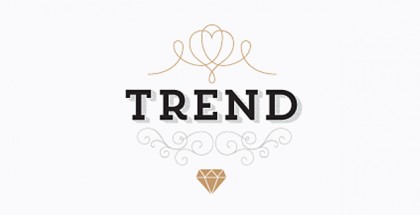
Eponymous
Eponymous is a modern typeface that instantly draws attention with its great spirit. It will immediately get you back to the glory days of the monstrous rock bands Led Zeppelin and Black Sabbath. In fact, this typeface is a bit like their music – a nice mixture between Bonzo Bonham’s heavy drums, the romantic voice of Robert Plant and the mastership of Jimmy Page and Tony Iommi. You will find Eponymous as likeable, pleasant, stylish and versatile as their art. This typeface possesses the same deep meaning as the music of those great musicians.
Technically, Eponymous is an Egyptian style font family that is distinctive with its chunky slab serifs and ball terminals. It comes in five weights in both Roman and Italic, each containing more than 550 glyphs. Among the extras are a full set of European characters, a full small caps set, that could be mixed with the regular lowercase and some stylistic alternates that will allow the users to change some of the main characters that are not quite suitable. With its great appearance and high legibility, Eponymous font family will be perfect for branding and logo design, music related items, all kinds of inscriptions, posters, etc.
Eponymous font family is a brainchild of the Irish freelance designer Paulo Goode. It is another great release after his formidable Carrig typeface. These two fonts clearly show us what 15 years of experience mean. We can only wish that Paulo’s next release will come sooner than later.